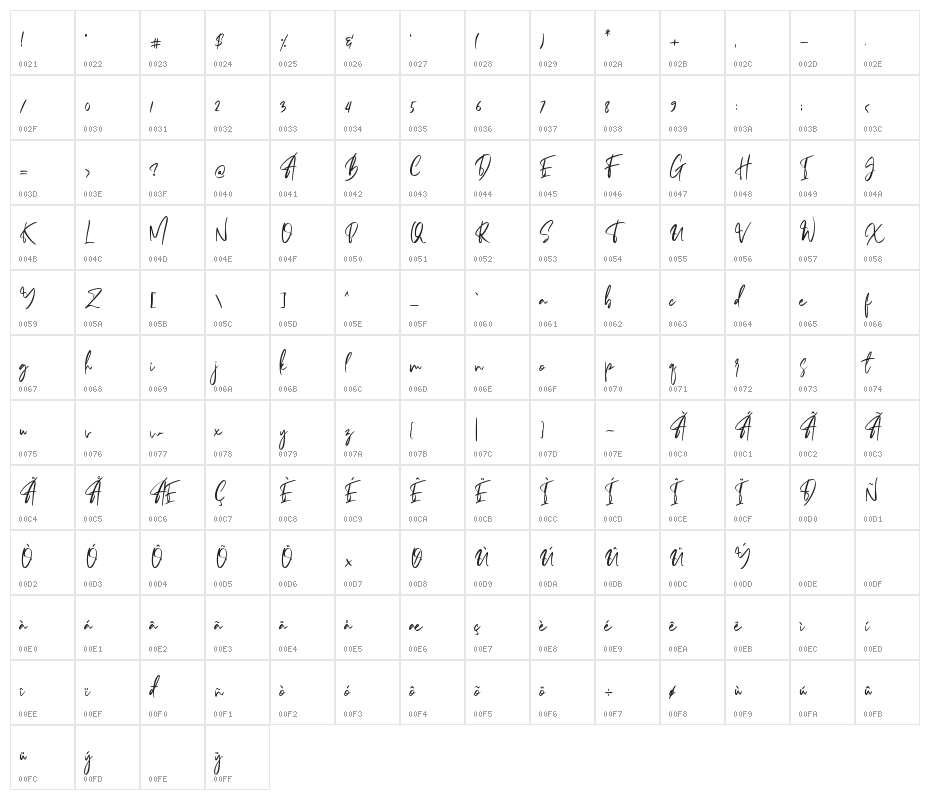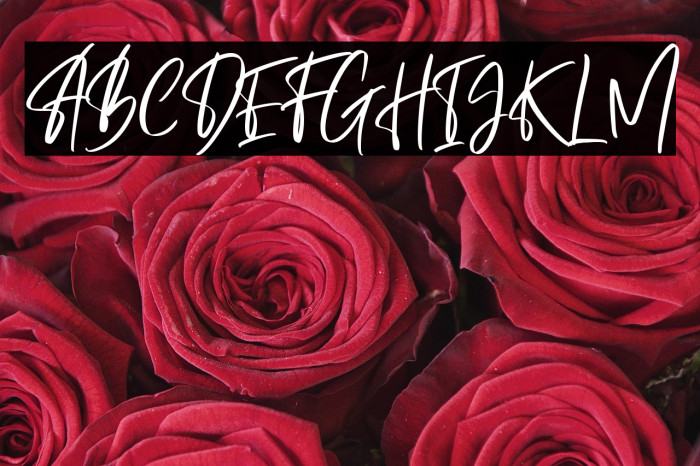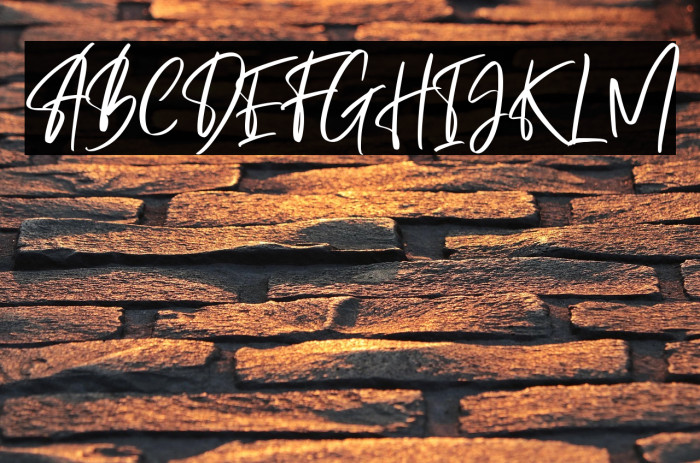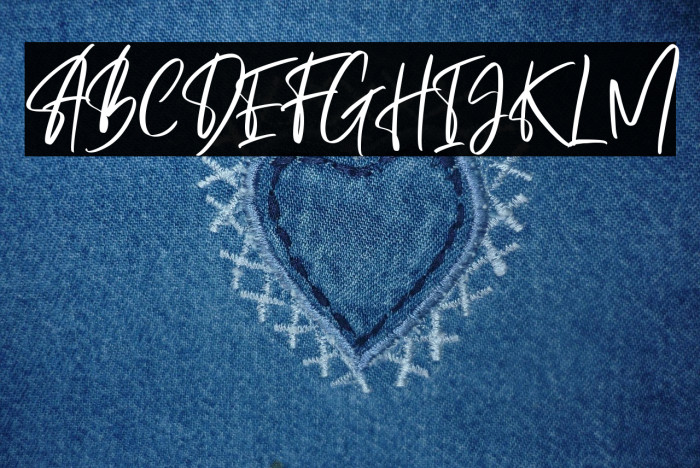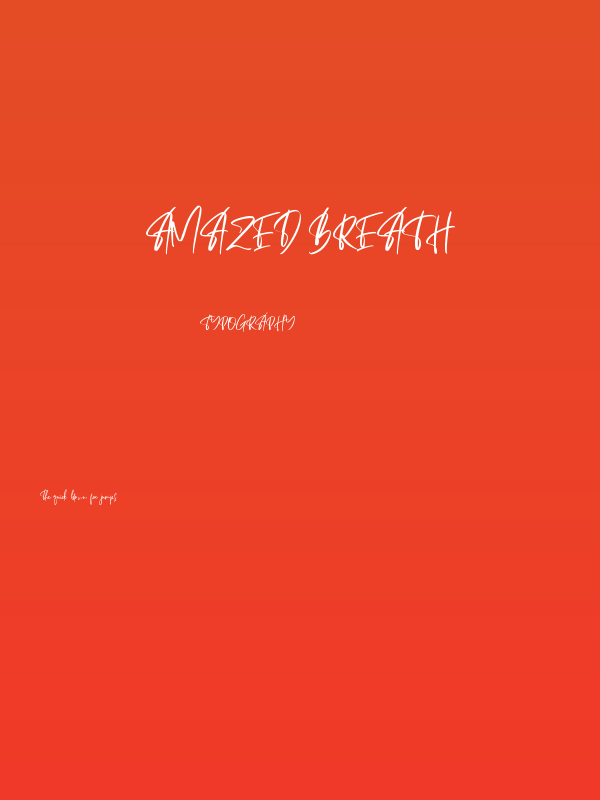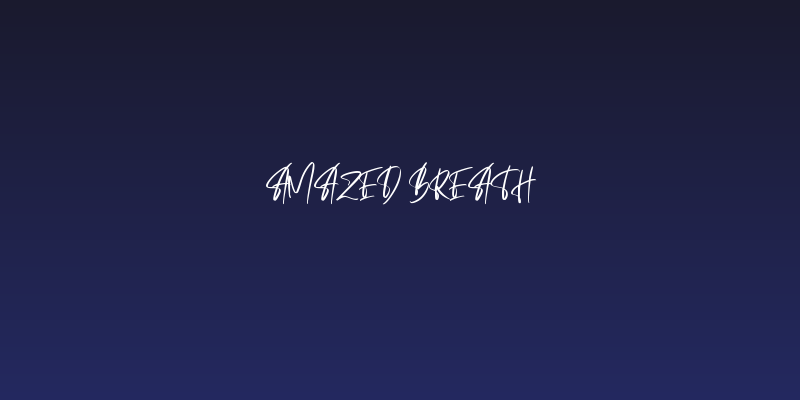
Amazed Breath Font
Amazed Breath Description
This font exudes a lively and expressive character, with its flowing and interconnected script style. The uppercase letters are bold and dynamic, featuring sweeping curves and loops that create a sense of movement and energy. The lowercase letters maintain a consistent fluidity, with elegant strokes that vary in thickness, adding to the font's charm. Numbers and special characters are crafted with the same attention to detail, ensuring a cohesive look across all elements. This font is perfect for projects that require a personal touch, such as invitations, greeting cards, or branding materials.